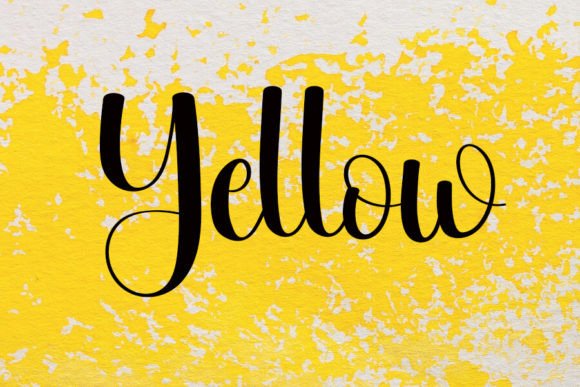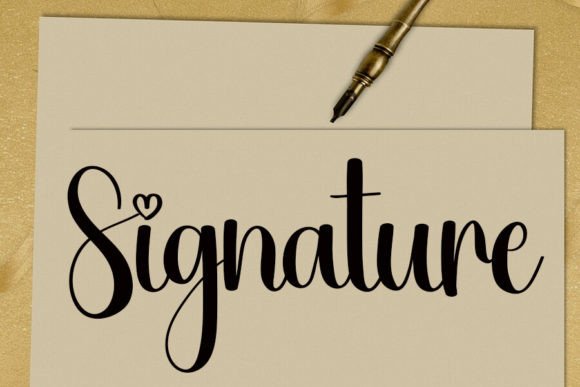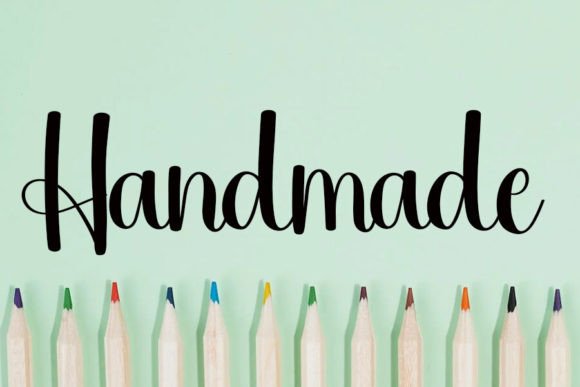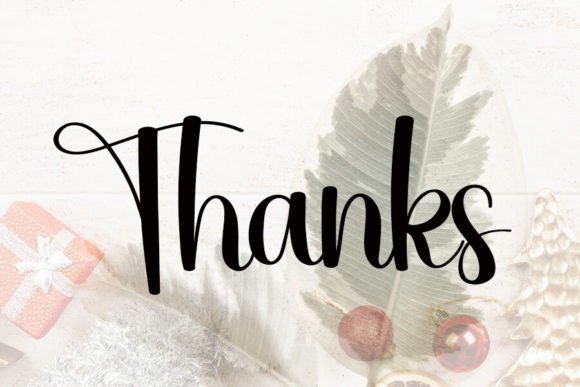
Discover the Delicate Charm of Handwritten Typography
Have you ever found yourself scribbling down ideas in a notebook, letting your pen dance across the page as you brainstorm a new project? That’s where the magic happens – in those unstructured, yet deeply personal moments of creation. As designers, we’re constantly searching for the perfect font to capture the essence of our vision. And that’s where the Autography Font comes in – a delicate, elegant, and flowing handwritten font that’s sure to leave a lasting impression.
The Autography Font is more than just a pretty face – it’s a carefully crafted tool designed to elevate your designs and leave a lasting impact. With its beautiful and well-balanced characters, this font is the perfect addition to any project, from elegant invitations to sophisticated branding materials.
Autography Font Key Features
- Unique Characteristics: Autography Font features a unique blend of modern and vintage elements, with intricate details and subtle textures that give it a distinctive look and feel.
- Font Style: Autography Font is a script font, perfect for adding a touch of elegance and sophistication to any design project, from wedding invitations to business cards and beyond.
Autography Font Review
As a designer, I was excited to dive into the Autography font and see what it has to offer. Overall, I’d say it’s a solid choice for certain projects, but it has its limitations.
- Unique style: Autography has a distinctive, handwritten feel that can add a touch of personality to your designs.
- Good for body text: The font is clear and readable, making it suitable for large blocks of text.
- Supports multiple weights: Autography comes in a range of weights, from light to bold, giving you flexibility in your designs.
- Not ideal for headlines: While Autography is great for body text, it can be a bit too casual for headlines and titles.
- Limited italics: The font’s italics are not as polished as its regular weight, which can be a drawback for certain designs.
- May not be suitable for small text: Due to its handwritten nature, Autography can be difficult to read in small sizes.
Overall, I think Autography is a great choice for projects that require a friendly, approachable tone. However, it may not be the best fit for more formal or professional designs. With some careful consideration of its limitations, Autography can be a valuable addition to your design toolkit.
Autography Font is perfect for:
- Creating handwritten-style titles and headings.
- Adding a personal touch to invitations and greeting cards.
- Designing social media graphics and ads.